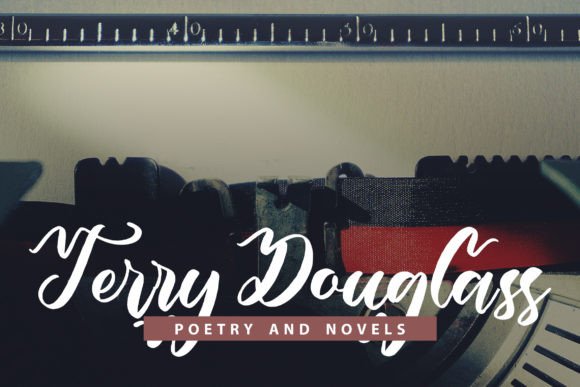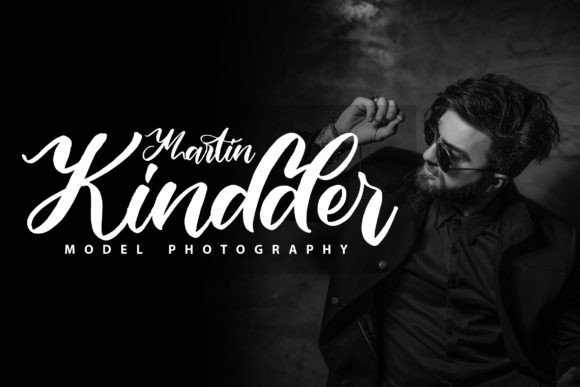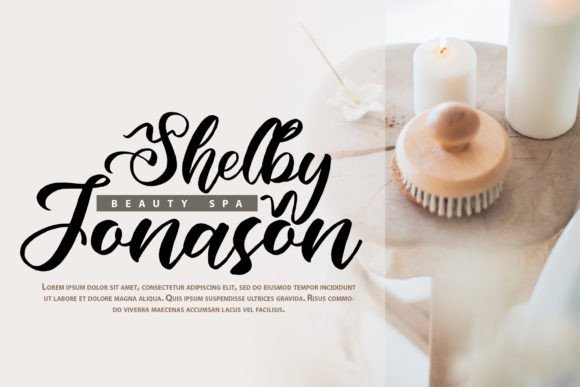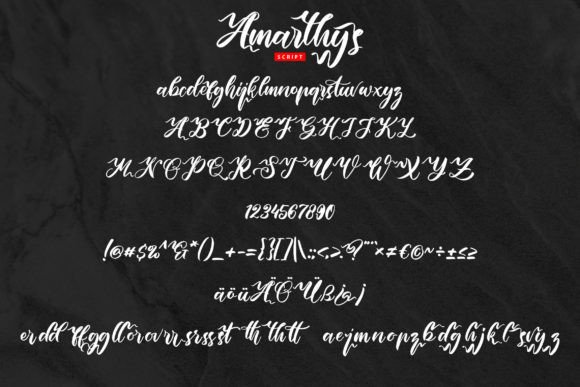
Introducing Amarthys Font: Elevate Your Designs with Modern Handwritten Elegance
In the world of digital design, fonts play a crucial role in conveying the tone and aesthetic of a project. For designers and crafters looking to add a touch of elegance and personality to their work, Amarthys Font is an exceptional choice. This modern handwritten font, infused with calligraphy style elements, is perfect for creating stunning invitations, greeting cards, branding materials, business cards, quotes, posters, and more.
What Makes Amarthys Font Stand Out?
Amarthys Font is distinguished by its unique blend of modernity and classic calligraphy. Its fluid strokes and elegant letterforms make it an ideal choice for designs that require a personal touch. Here are some key features that set Amarthys Font apart:
- Modern Handwritten Style: Amarthys boasts a contemporary handwritten look that feels both fresh and sophisticated.
- Calligraphy Elements: The font incorporates beautiful calligraphy elements, adding a level of refinement and luxury to any design.
- Versatility: Whether you’re working on invitations, greeting cards, business cards, or posters, Amarthys Font adapts seamlessly to various design needs.
- Ease of Use: Designed to be user-friendly, Amarthys Font can be easily integrated into your projects, making it accessible for both beginners and seasoned designers.
Amarthys Font’s versatility makes it suitable for a wide range of design applications. Here are some ideas to get you started:
- Invitations: Make your event invitations stand out with Amarthys Font’s elegant and modern appeal.
- Greeting Cards: Add a personal touch to your greeting cards, making them memorable for any occasion.
- Branding Materials: Elevate your brand’s visual identity with a font that exudes sophistication and style.
- Business Cards: Leave a lasting impression with business cards that feature Amarthys Font’s unique and professional look.
- Quotes and Posters: Create visually stunning quotes and posters that capture attention and convey your message effectively.
Tips for Using Amarthys Font Effectively
To maximize the impact of Amarthys Font in your designs, consider the following tips:
- Pair with Complementary Fonts: Combine Amarthys Font with simpler fonts to create visual contrast and hierarchy in your designs.
- Adjust Letter Spacing: Experiment with letter spacing to enhance readability and aesthetic appeal.
- Play with Colors: Utilize Amarthys Font’s versatility by experimenting with different colors that match your design’s theme.
- Use it for Headlines and Titles: Amarthys Font shines in headlines and titles, making it perfect for grabbing attention.
Amarthys Font is a powerful tool for designers and crafters aiming to infuse their projects with a modern, elegant touch. Its unique blend of handwritten and calligraphy styles offers endless possibilities for creative expression. Whether you’re designing invitations, branding materials, or posters, Amarthys Font is sure to elevate your work to new heights. Explore the potential of Amarthys Font today and discover how it can transform your designs into stunning visual experiences.
Elevate your designs with Amarthys Font – where modern elegance meets creative expression.